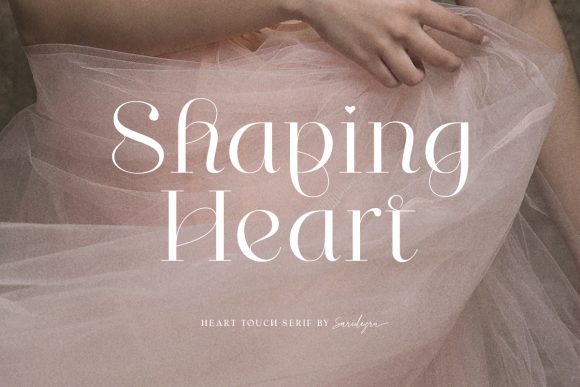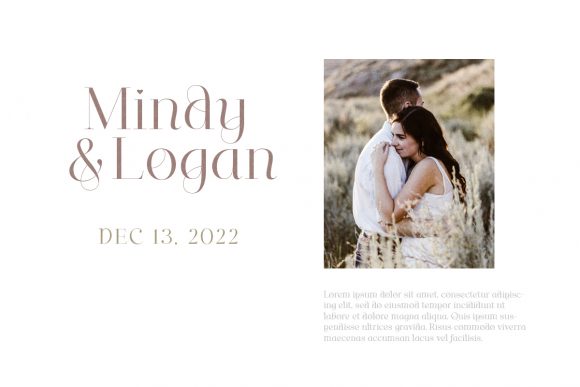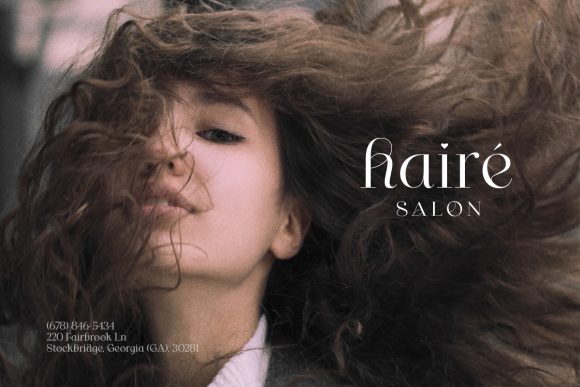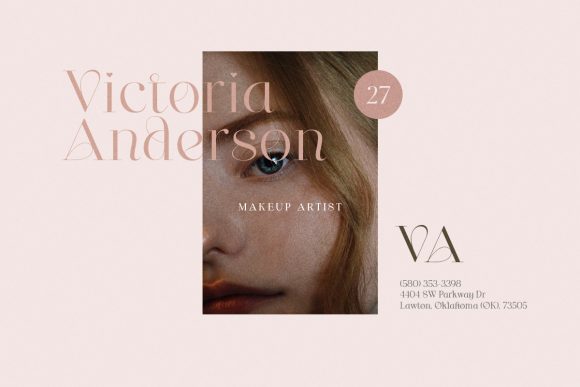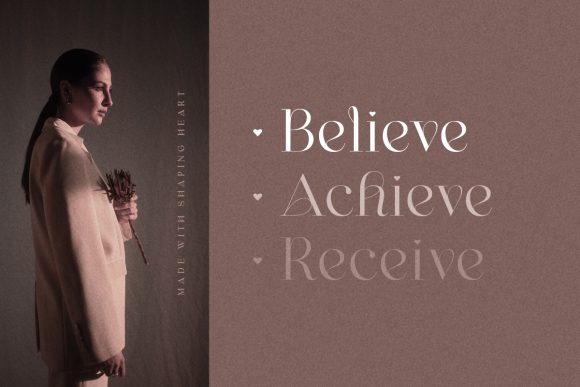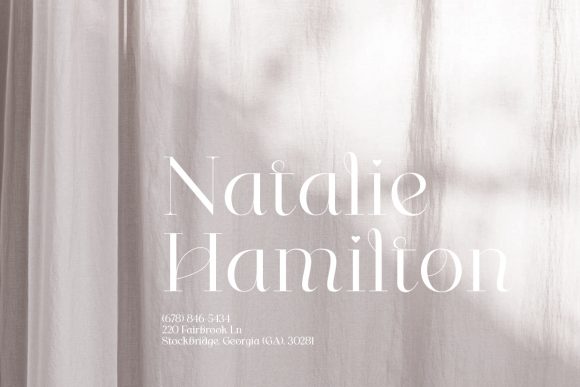
Introduction to Shaping Heart Font
As you sit in front of your computer, staring at a blank canvas, you know that the perfect font can make or break a creative project. It’s that one moment when inspiration strikes, and you envision the perfect design. For many designers, finding the perfect font can be a challenge. But what if I told you that there’s a font that can elevate your design to the next level? Enter the Shaping Heart Font, a delicate and elegant serif font that’s sure to make your creations look out of this world.
With its high-quality design and transparent background, the Shaping Heart Font is a valuable resource for designers. Whether you’re working on a free download or a paid project, this font is sure to impress. Its versatility makes it perfect for a wide range of creative projects, from graphic design to digital art. And the best part? It’s available for free download, making it a must-have for any designer looking to add a touch of elegance to their work.
Key Features of Shaping Heart Font
- High-quality design resource perfect for creative projects, available for free download.
- Unique, hand-drawn design with a transparent background, ideal for adding a personal touch to your designs.
- Includes a range of font styles, from casual to elegant, to suit various design needs and preferences.
- Designed with a high resolution (300 DPI) for crisp and clear text, suitable for print and digital use.
- Perfect for designers, artists, and crafters looking for a unique and creative design element for their projects.
Honest Review: Shaping Heart Font
I recently had the opportunity to work with the Shaping Heart Font, and I must say it’s been a delightful addition to my design projects. ✨ The font’s playful and whimsical nature makes it perfect for creative projects where a touch of personality is needed. I love that it’s available for a free download, making it an excellent resource for designers on a budget.
The Shaping Heart Font is also available with a transparent background, which gives designers the flexibility to layer it with other design elements. This feature has been a game-changer for my recent design work, allowing me to create visually striking compositions.
Here are some of the key features I’ve enjoyed working with:
- High-quality design that’s perfect for print and digital applications
- Playful and whimsical style that adds a touch of personality to creative projects
- Transparent background for seamless layering
- Free download, making it an excellent design resource
One limitation I’ve noticed is that the font may not be suitable for projects where a more professional or formal tone is required. ⚠️ In these cases, the font’s playful nature may not be the best fit.
Overall, I’m impressed with the Shaping Heart Font and would highly recommend it to designers working on creative projects. Its high-quality design and versatility make it a valuable addition to any design resource library.
Shaping Heart Font
The Shaping Heart Font is a free design resource that can add a touch of creativity to any project. With its high-quality design and transparent background, it’s perfect for use in various digital design applications.
You can also use the Shaping Heart Font in PowerPoint or Word to add a creative touch to your presentations and documents. Simply install the font and start typing to see the unique shape come to life.
The Shaping Heart Font is commonly used in creative projects such as graphic design, digital art, and typography. It’s perfect for creating custom graphics, logos, and other visual elements.